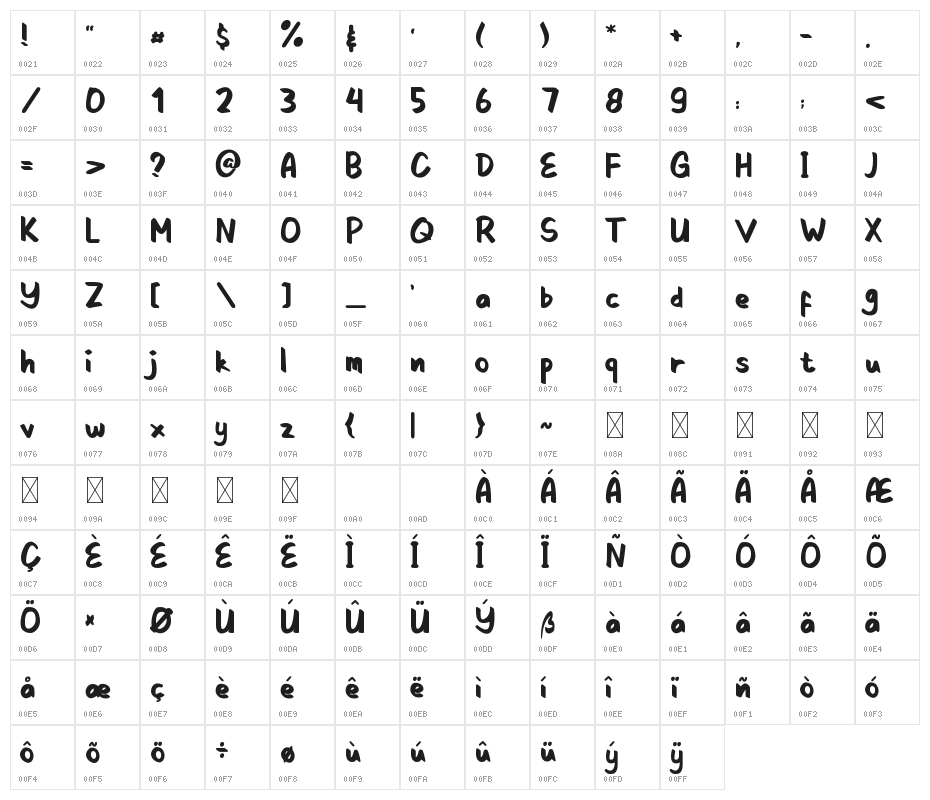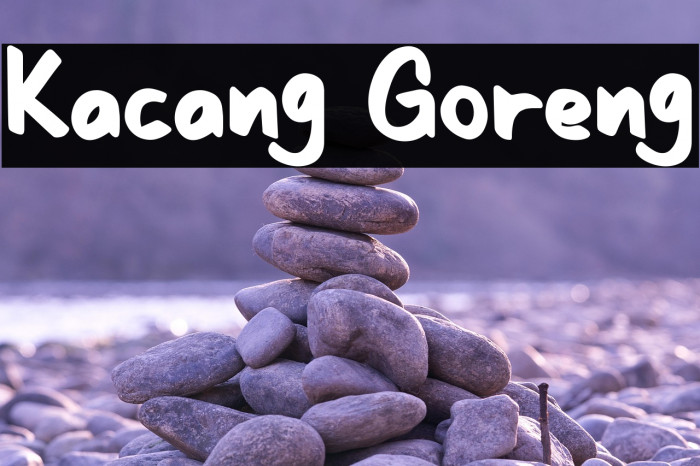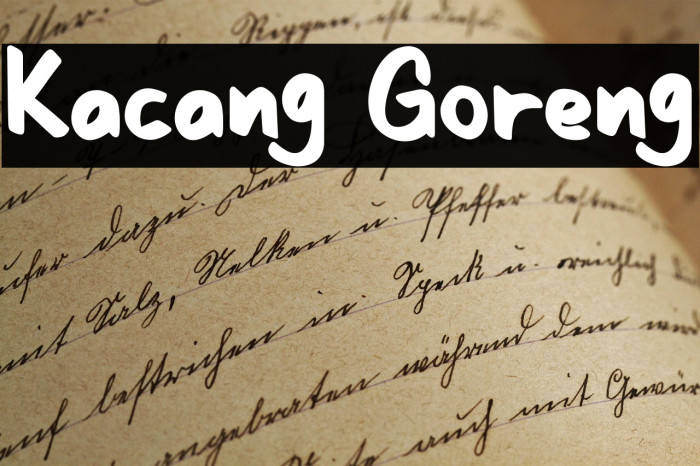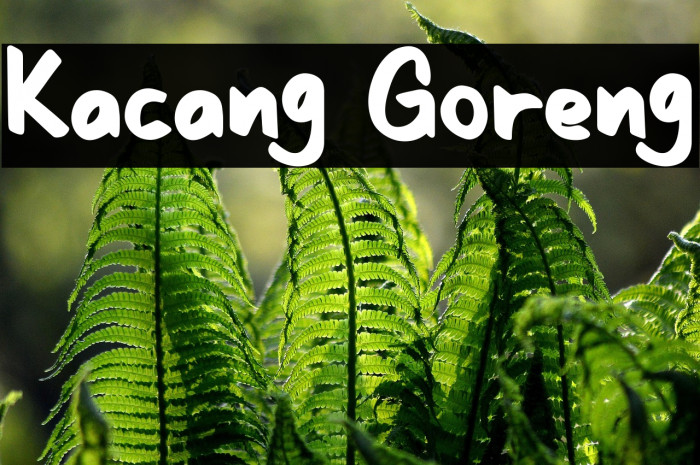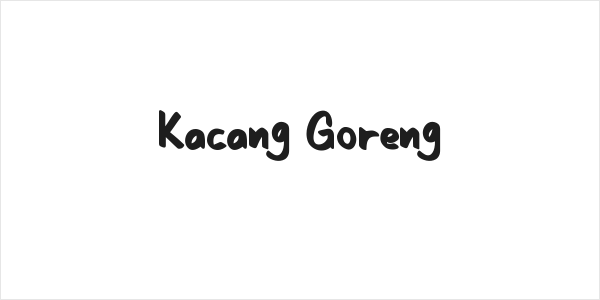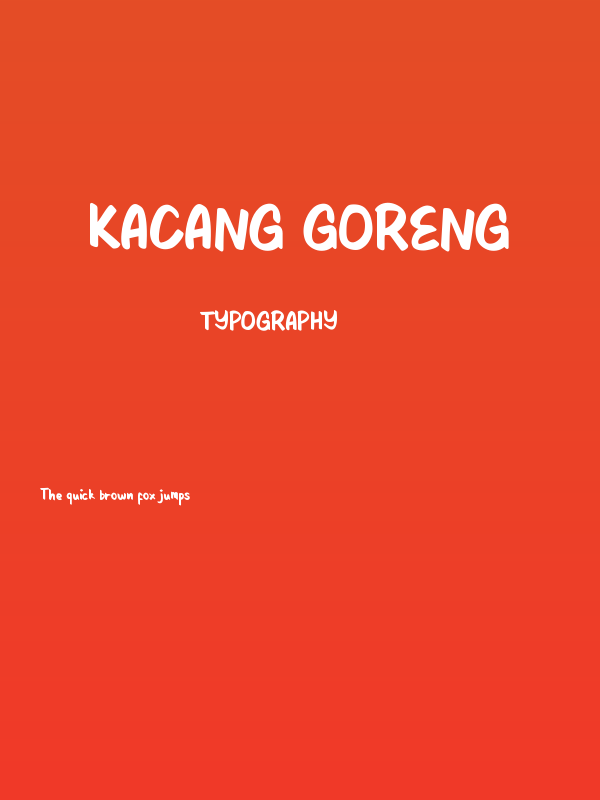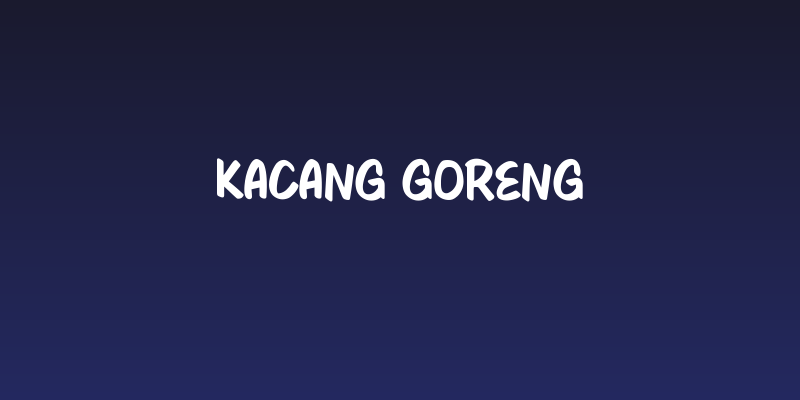
Kacang Goreng Font
Kacang Goreng Description
This playful and bold font features a handwritten style with a whimsical touch. The characters are rounded and slightly irregular, giving a casual and friendly appearance. The uppercase and lowercase letters maintain a consistent style, with a noticeable bounce and flow that adds to its charm. The numerals and special characters are equally playful, fitting seamlessly with the overall design. This font is perfect for projects that require a fun and approachable aesthetic, such as children's books, playful branding, or informal invitations.
| Overall Style | Playful, Casual |
| Proposed Projects | Ideal for children's books, playful branding, informal invitations, and creative posters. |